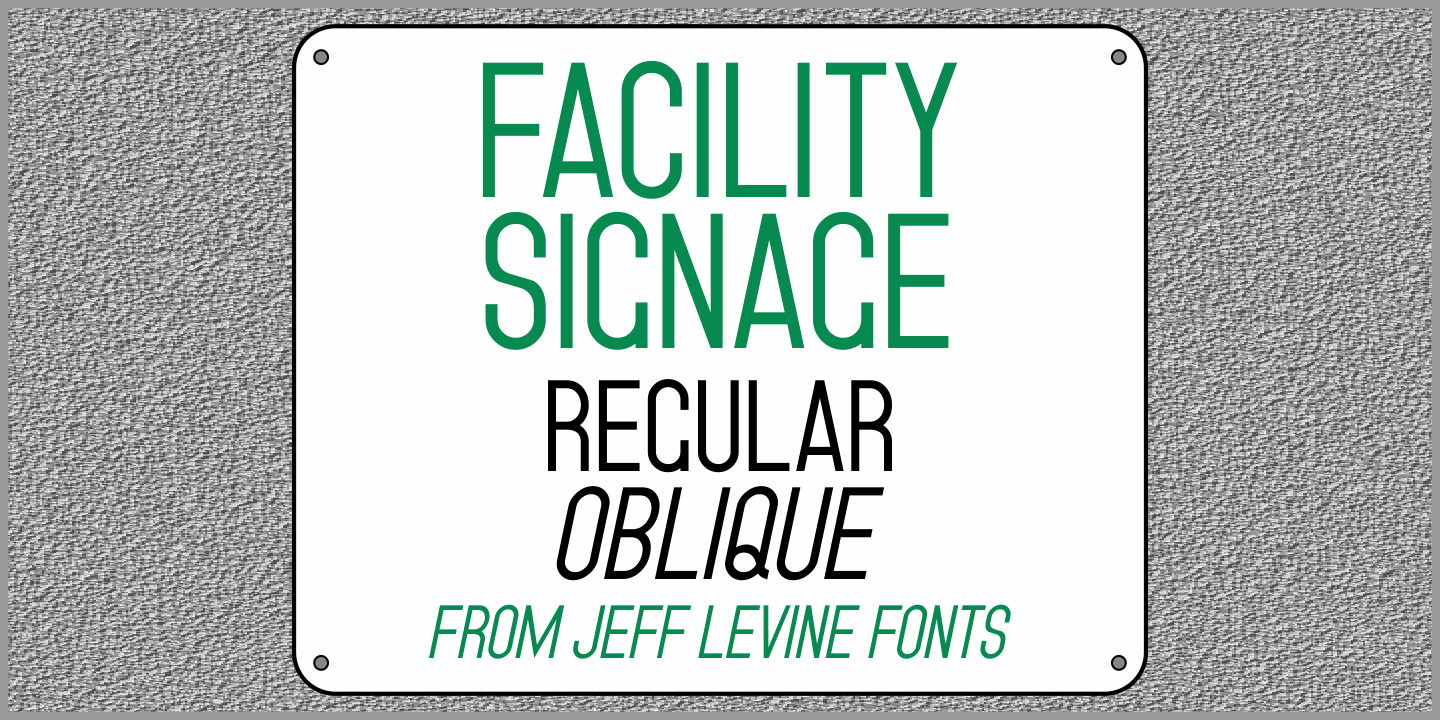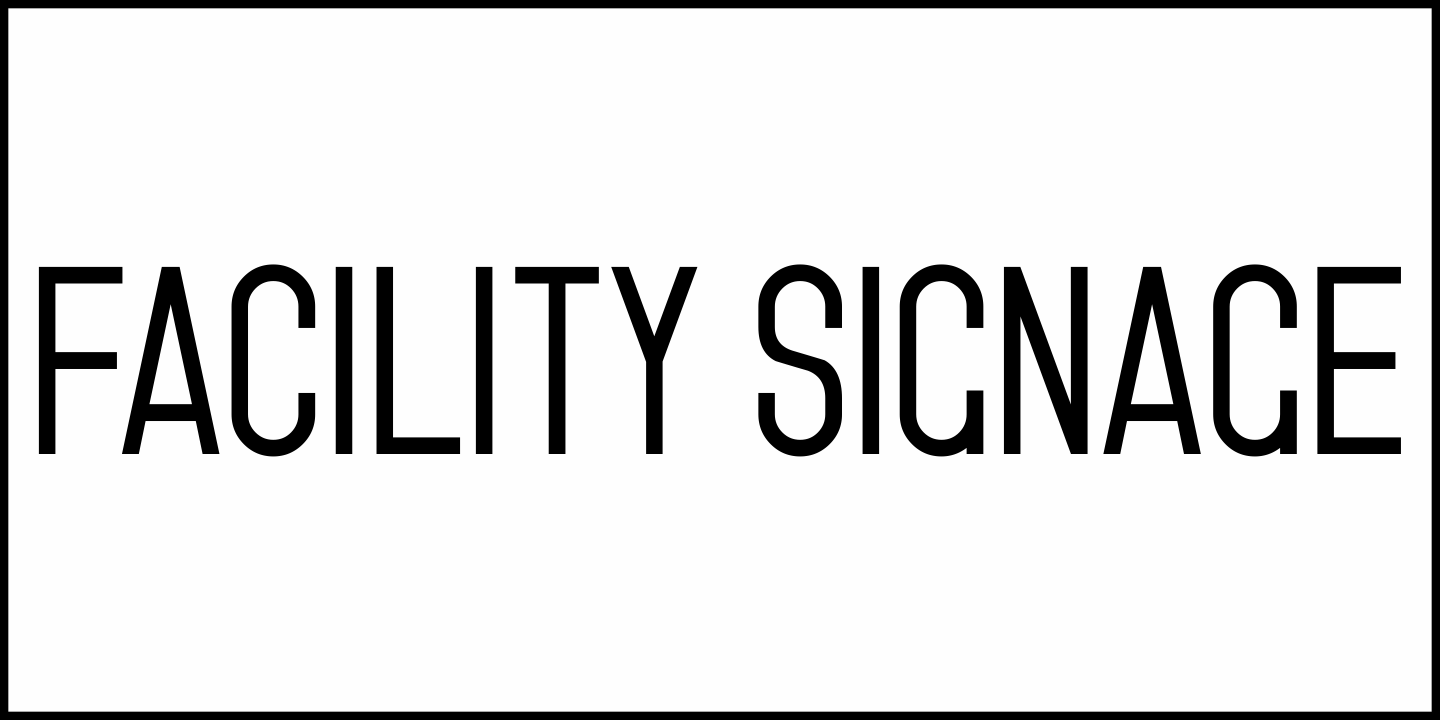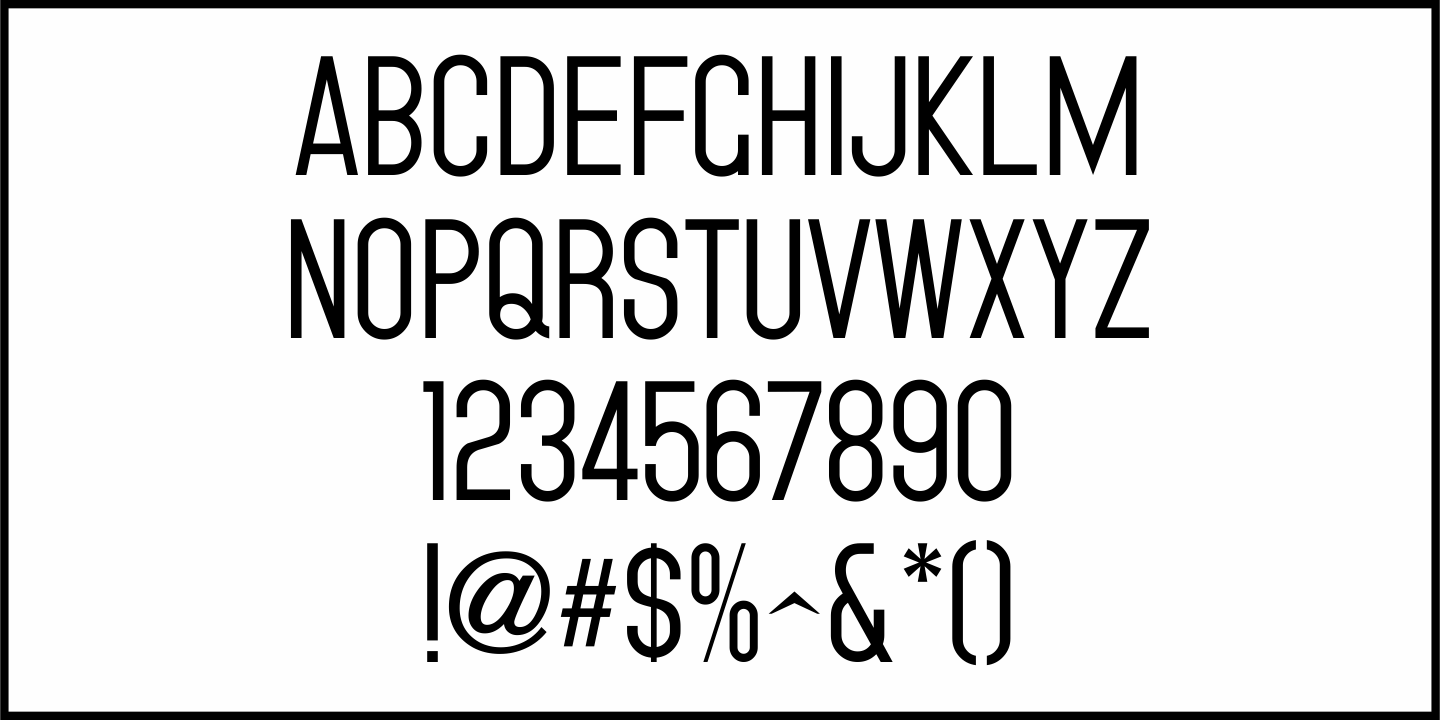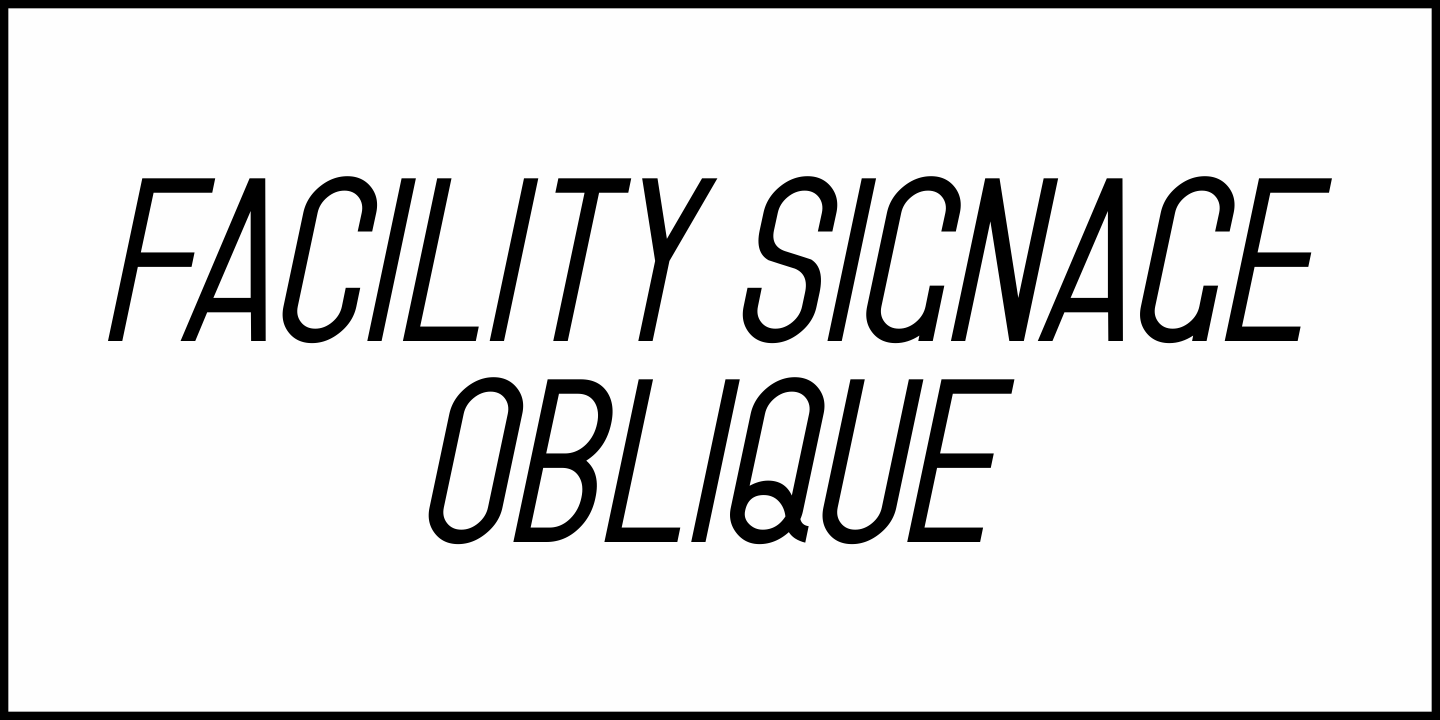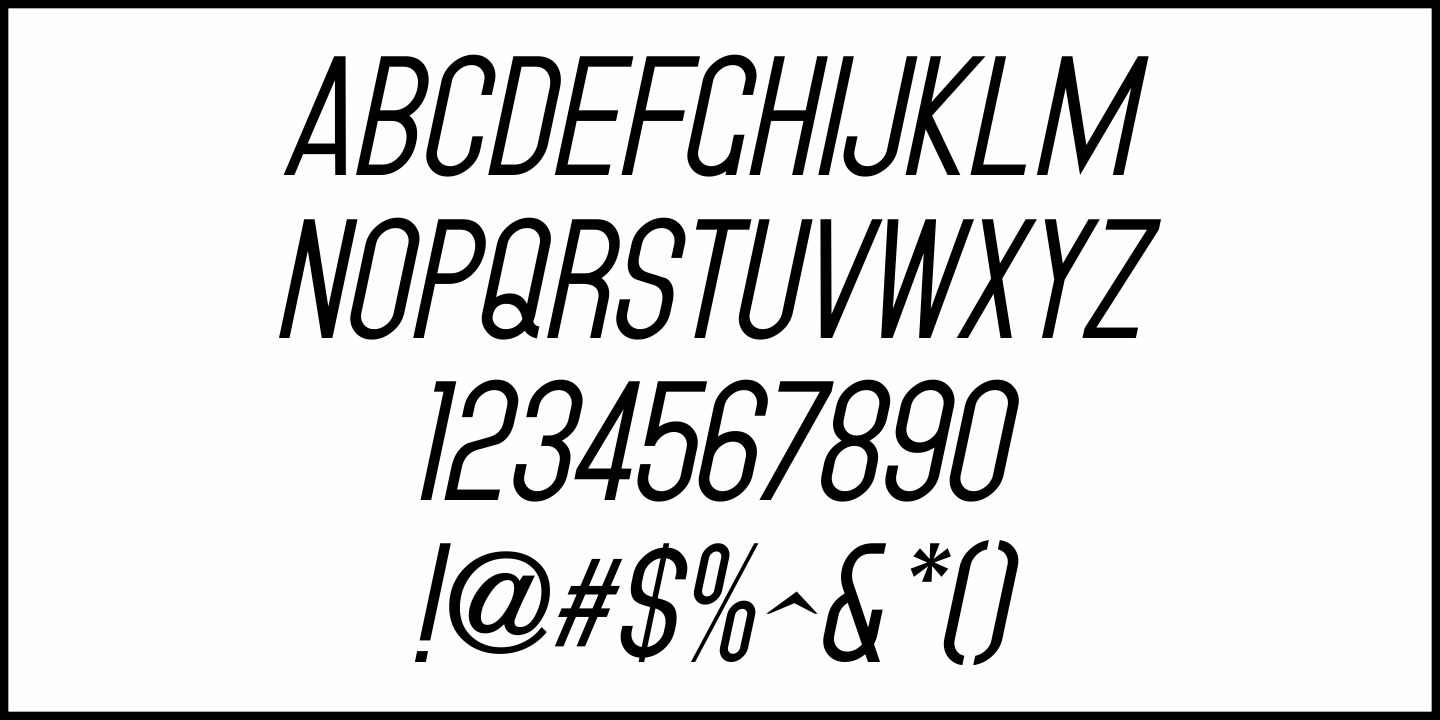
Facility Signage
A famous 1971 photo shows boxing champ Muhammad Ali making faces through a window at Joe Frazier at the challenger's training facility. A small sign sits in the window that says 'Joe Frazier Training Headquarters” and is lettered in a simple sans serif condensed typeface.
This is now available as Facility Signage JNL in both regular and oblique versions.